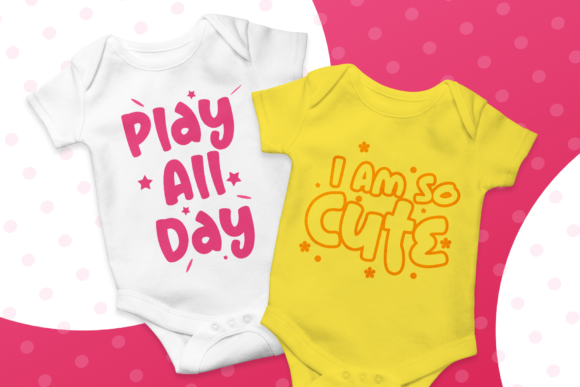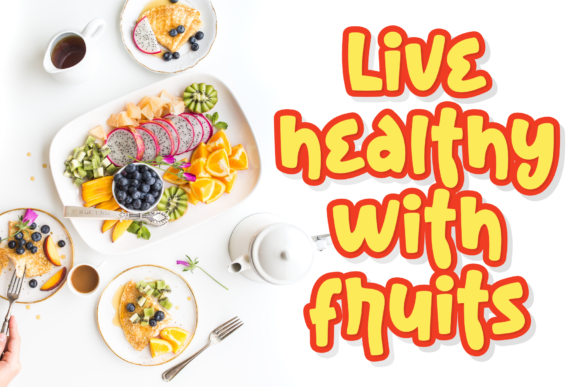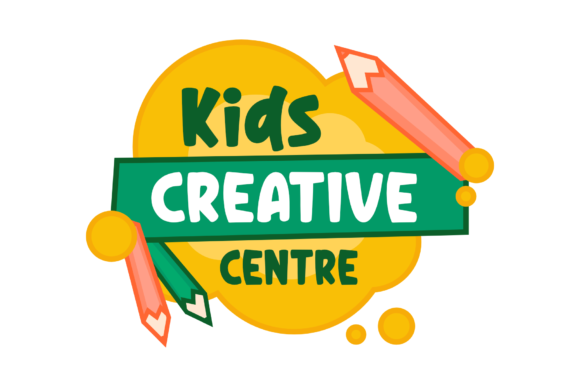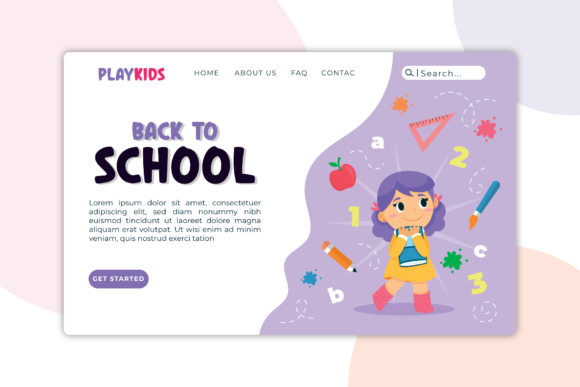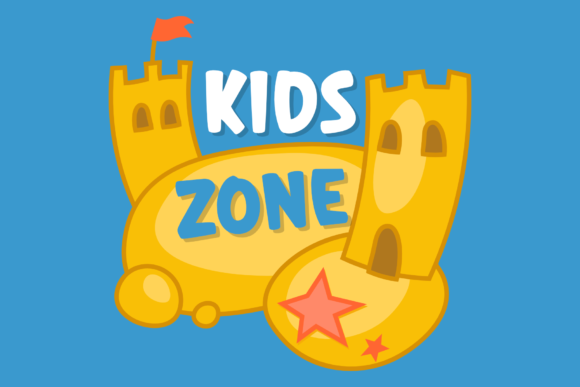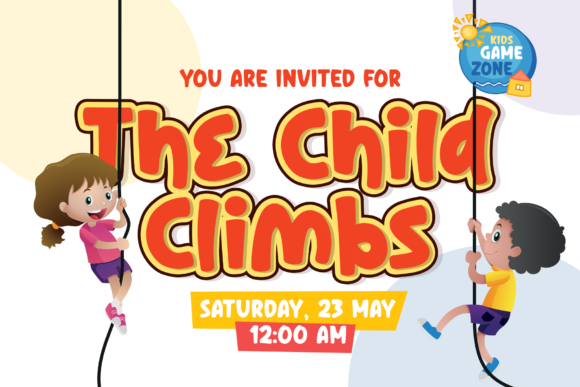
Introduction to Salty Candy Font
Salty Candy is a children’s font with a cheerful and happy feel.
This cute display font will add a fantastic touch to your designs Use it for any kids’ projects, such as, t-shirts, web designs, logos, and more.